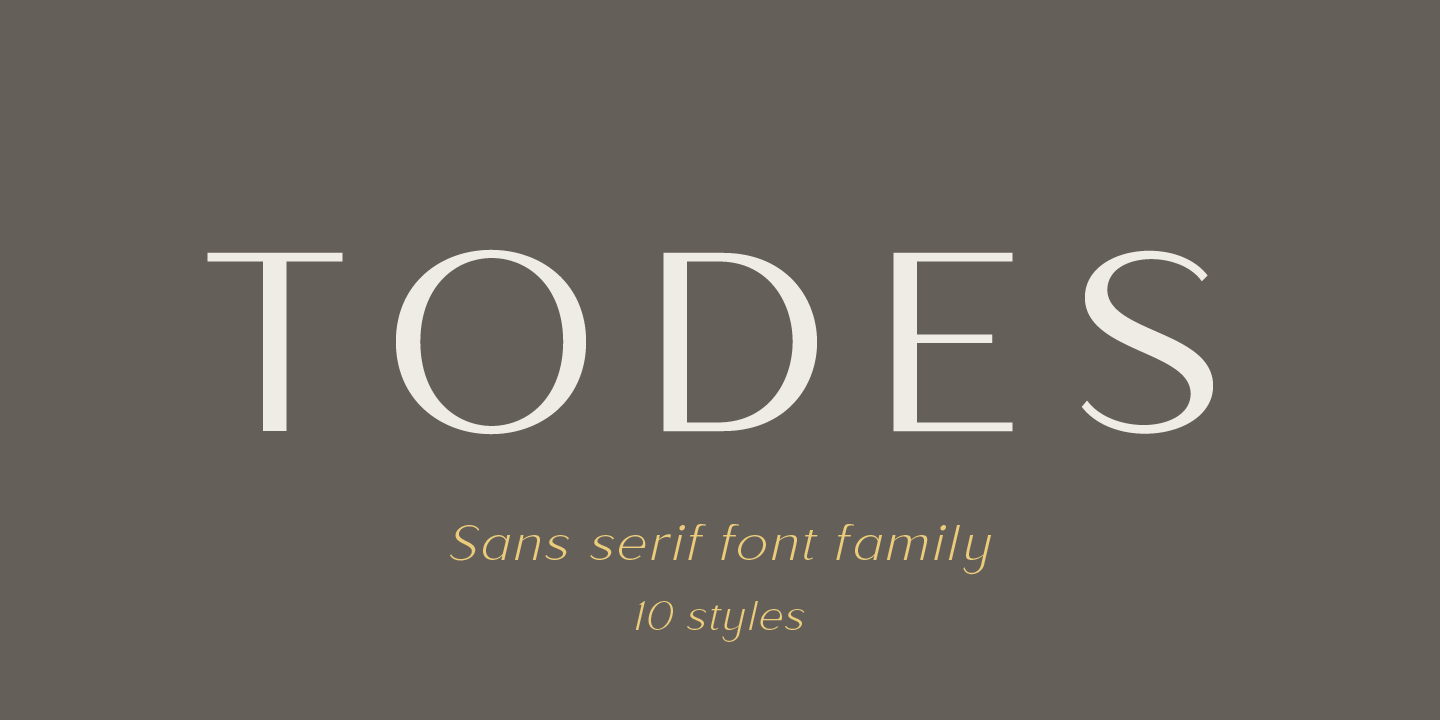
Todes Font Free Download is a bold, eye-catching typeface that combines modern design with a slightly edgy, rebellious flair. Perfect for posters, album covers, apparel branding, and promotional materials, this font commands attention with its sharp lines and strong presence. Its unique letterforms make Todes Font ideal for projects that need a powerful, standout look.
With Todes Font Free Download, you get a complete set of uppercase letters, numbers, and essential punctuation to cover all your design needs. Its striking style works well in both print and digital media, allowing you to create impactful headlines, logos, and social media graphics. Whether you’re working on a music festival poster or a streetwear brand identity, Todes Font adds energy and attitude to your designs.